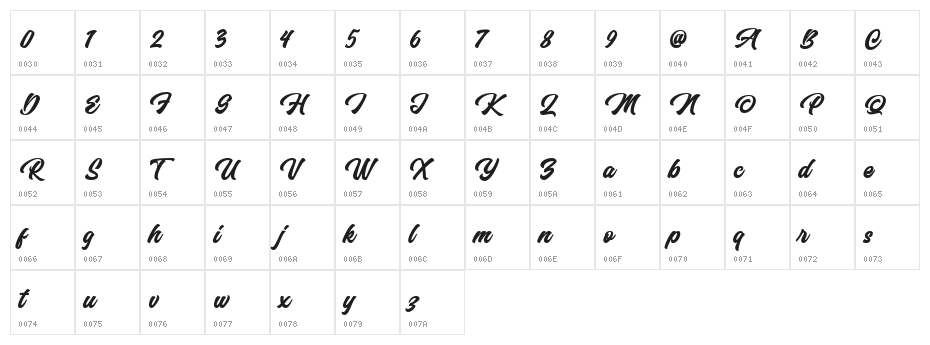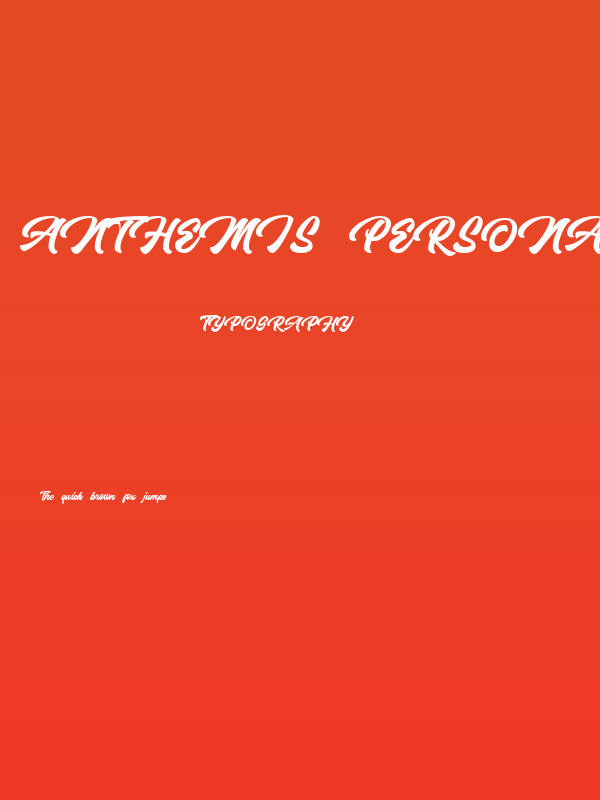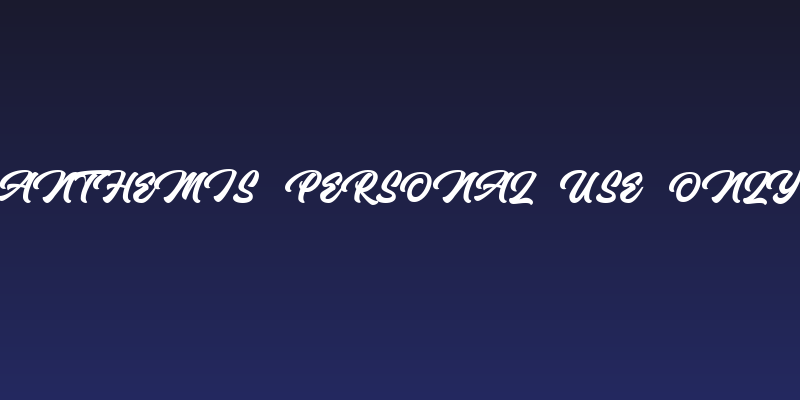
Anthemis Personal Use Only Font
Anthemis Personal Use Only Description
This font exhibits a bold and flowing script style, characterized by its elegant and cursive letterforms. The uppercase letters are particularly ornate, with sweeping curves and flourishes that give a sense of movement and grace. The lowercase letters maintain a consistent style, with smooth connections between characters, enhancing readability while retaining a decorative flair. The numerals are equally stylized, matching the overall aesthetic of the alphabet. This font is well-suited for designs that require a touch of sophistication and elegance, such as invitations, branding, and decorative headings.
| Proposed Projects | Ideal for wedding invitations, branding, logos, and decorative headings. |